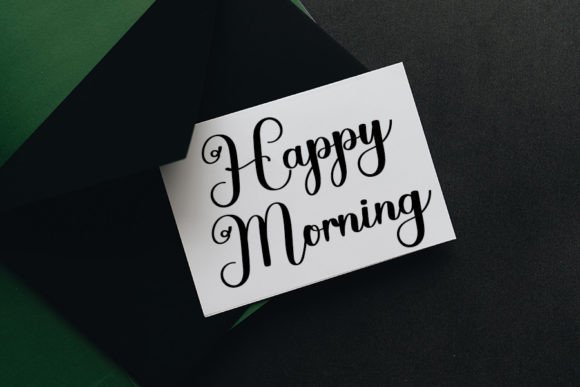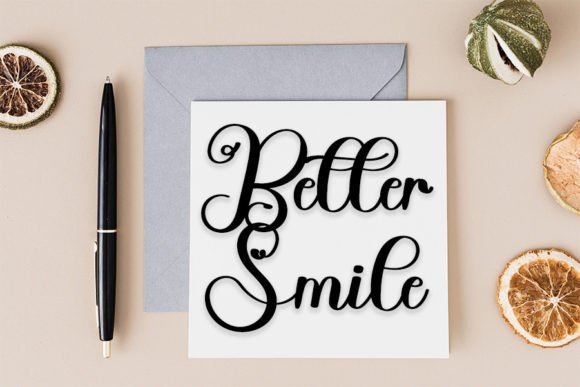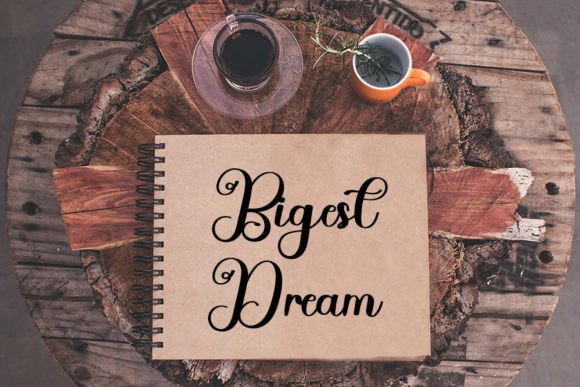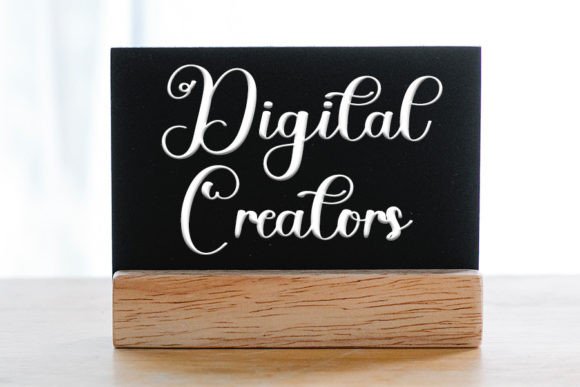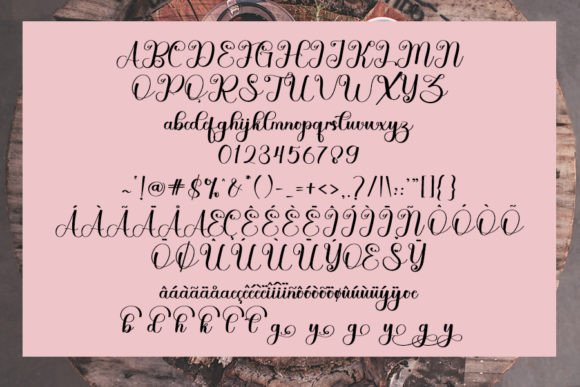
Rainday Font
Rainday stands as a stunning and sophisticated handwritten font, embodying both beauty and elegance. Tailored for projects that demand a charming appearance, Rainday effortlessly elevates the visual appeal of any design it graces. Its graceful strokes and unique aesthetic make it a versatile choice for a wide range of creative applications.
This font’s versatility is underscored by its ability to seamlessly adapt to diverse design projects. Whether enhancing the aesthetics of invitations, creating captivating branding, or infusing a touch of charm into social media graphics, Rainday brings a level of sophistication that captivates the audience. Its handwritten style adds a personal and authentic touch, making it well-suited for projects that require a blend of elegance and approachability.
One notable feature of Rainday is its PUA encoding, a testament to its user-friendly design. This encoding ensures easy access to all glyphs and swashes, providing designers with a wealth of creative possibilities. The inclusion of swashes adds a decorative flourish, allowing for the customization of typography to suit the specific needs of the project.
The gorgeous and elegant nature of Rainday extends beyond its visual appeal; it becomes a tool for artistic expression. Its timeless aesthetic makes it suitable for both contemporary and classic design contexts. Whether used for print or digital applications, Rainday imparts a sense of refinement and sophistication that resonates with discerning audiences.
In essence, Rainday is not just a font; it’s a design asset that transforms ordinary projects into extraordinary ones. Its elegance and accessibility, coupled with the versatility of PUA encoding, make it a delightful choice for designers seeking to impart a charming and sophisticated touch to their creative endeavors. With Rainday, each project becomes an opportunity to showcase the beauty of handwritten elegance.